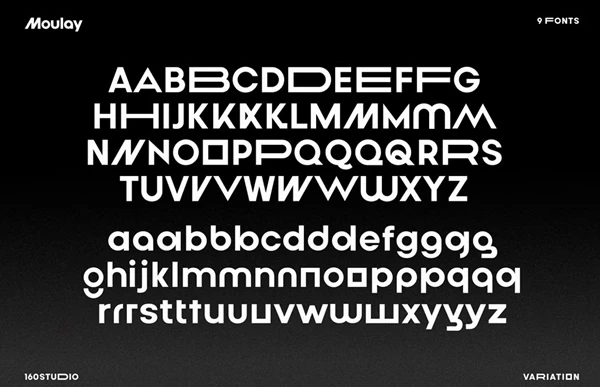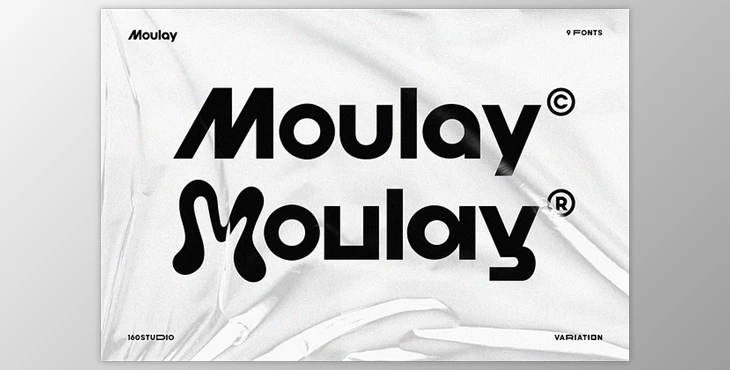
Moulay Font Duo: "Moulay" presents a dynamic pairing of casual, strong, and fun Sans typefaces, meticulously crafted to strike a perfect balance between individual excellence and seamless harmony when used together. Ideal for a great range of applications, including logos, magazine layouts, editorials, displays, quotes, posters, and products, this font duo offers versatility and style to enhance any design project.
How can we add vibrant and engaging typography to our projects?
You can use "Moulay Font Duo."
Included in the package are OTF and TTF font files, as well as a webfont option for online use. The "Moulay" font features uppercase and lowercase characters, along with numbers, punctuation, and stylistic alternates for added versatility. With multilingual support and simple installation, this font duo ensures accessibility and ease of use for designers worldwide.
Whether used individually or paired together, "Moulay" offers a vibrant and engaging typographic solution to elevate any design. Plus, with the promise of free future updates, this font duo provides lasting value and flexibility for designers looking to create memorable visuals.